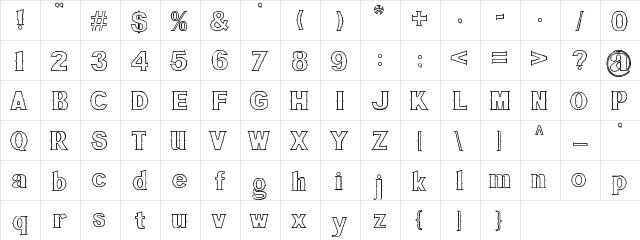
Bluegrass OUTLINE Regular
| Foundry | Cruzine Design |
| Designer | Cruzine Design |
Design Context for Bluegrass OUTLINE Typeface
Bluegrass OUTLINE is built around its visual character rather than neutral utility — its distinctive forms are designed to make an impression at display sizes.
Font Pairing: Pair with a clean neutral sans-serif for body copy to let Bluegrass OUTLINE's character lead without overwhelming the composition.
Pro Tip: Treat Bluegrass OUTLINE as the centrepiece of your typographic hierarchy. One strong heading set in a decorative face can carry an entire layout.